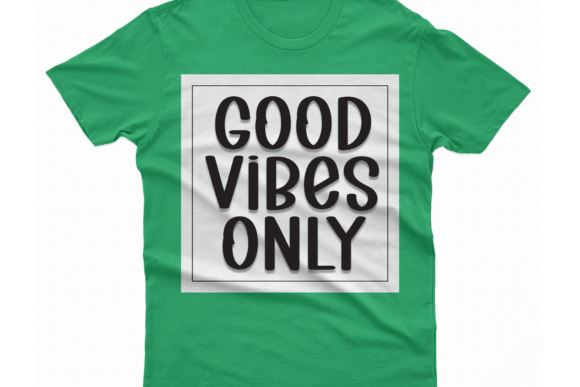
December Minimalist Font: Elevate Your Designs with a Touch of Whimsy
In the world of typography, fonts play a crucial role in conveying the tone and personality of a design. When it comes to creating visually stunning and charming designs, the right font can make all the difference. This is where the December Minimalist Font comes in – a delightfully playful and affable handwritten display font that is sure to elevate your designs from ordinary to exquisitely charming.
The Charm of Handwritten Fonts
Handwritten fonts have always been a popular choice among designers, and for good reason. They add a personal touch to any design, making it feel more approachable and relatable. The December Minimalist Font is no exception. With its delicately sweet yet vibrant personality, this font is perfect for infusing your designs with a splash of fun and whimsy.
What Makes December Minimalist Font Special?
So, what sets the December Minimalist Font apart from other fonts? Here are a few key features that make it a standout:
- Unique and One-of-a-Kind: This font is a true original, with a distinctive personality that will set your designs apart from the crowd.
- Playful yet Elegant: The December Minimalist Font strikes the perfect balance between playfulness and elegance, making it suitable for a wide range of design applications.
- Handwritten with Love: Each letter has been carefully crafted by hand, giving the font a warm and personal feel.
- Versatile: Whether you’re designing wedding invitations, greeting cards, or social media graphics, this font is sure to shine.
Perfect for Wedding Invitations and Cards
When it comes to wedding invitations and cards, you want a font that exudes elegance and sophistication. The December Minimalist Font is an excellent choice, as it adds a touch of whimsy and romance to any design. Here are a few ways you can use this font to create stunning wedding invitations and cards:
- Pair it with a Bold Color: Use the December Minimalist Font in a bold color to create a striking contrast with your design.
- Add Floral Elements: Combine the font with floral elements, such as illustrations or watercolor designs, to create a romantic and feminine look.
- Use it as a Header: Use the font as a header or title font to add a touch of elegance to your design.
Example: Wedding Invitation Design
Beyond Wedding Invitations: Other Design Applications
The December Minimalist Font is not just limited to wedding invitations and cards. Its versatility makes it suitable for a wide range of design applications, including:
- Social Media Graphics: Use the font to create eye-catching social media graphics that showcase your brand’s personality.
- Posters and Flyers: Add a touch of whimsy to your posters and flyers with this delightful font.
- Branding and Packaging: Use the font to create a cohesive brand identity that exudes elegance and sophistication.
Tips for Using December Minimalist Font
Here are a few tips to keep in mind when using the December Minimalist Font:
- Keep it Simple: Don’t overcomplicate your design. Let the font speak for itself.
- Experiment with Colors: Try out different color combinations to find the perfect match for your design.
- Mix and Match: Combine the font with other design elements, such as illustrations or textures, to create a unique look.
In conclusion, the December Minimalist Font is a truly special font that can elevate your designs from ordinary to exquisitely charming. Its unique personality, versatility, and elegance make it perfect for a wide range of design applications. Whether you’re designing wedding invitations, social media graphics, or branding materials, this font is sure to shine. So why wait? Download the December Minimalist Font today and start creating stunning designs that will leave a lasting impression!